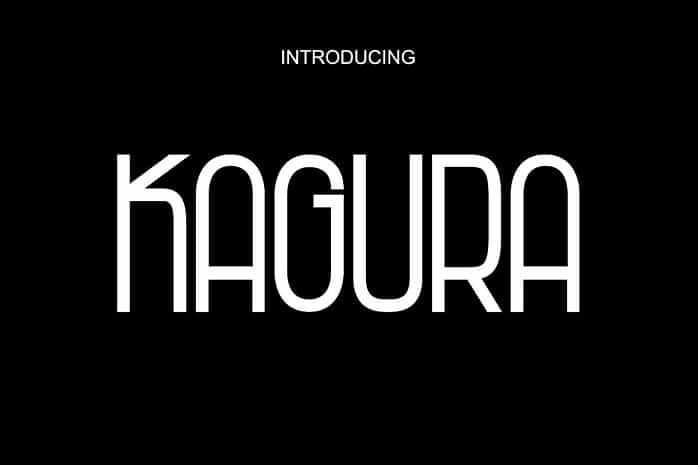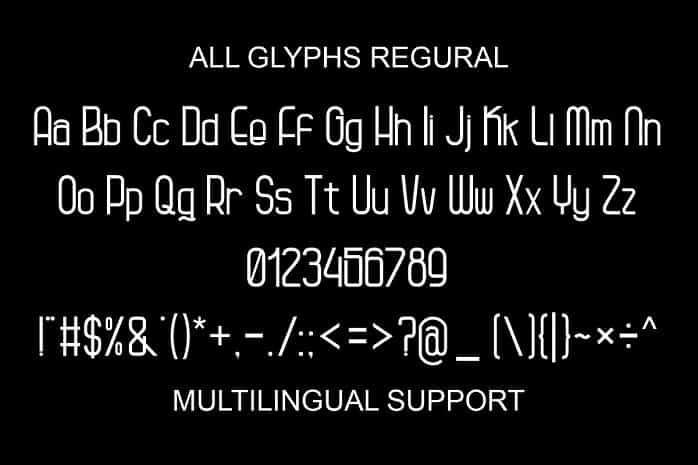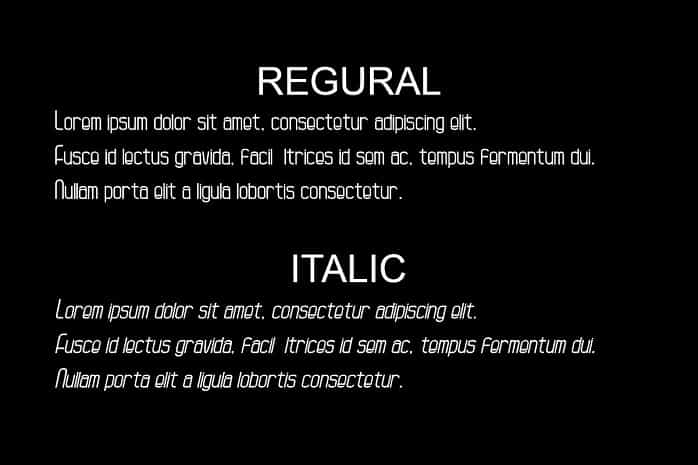
Introducing Kagura Font. Kagura is a sans serif with high letters and a sexy appearance. It can be applied to any design that requires a lively, tempting and refined appearance. The font is fully suitable for your blog. Moreover, with their assistance you can design a logo or pretty frame for your home. Or you can just use it for your small business, book covers, stationery, marketing, magazines and so on.